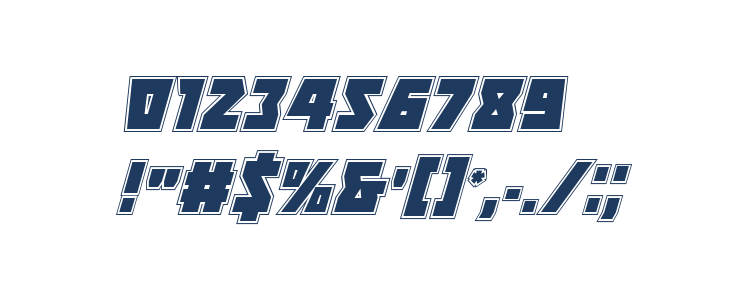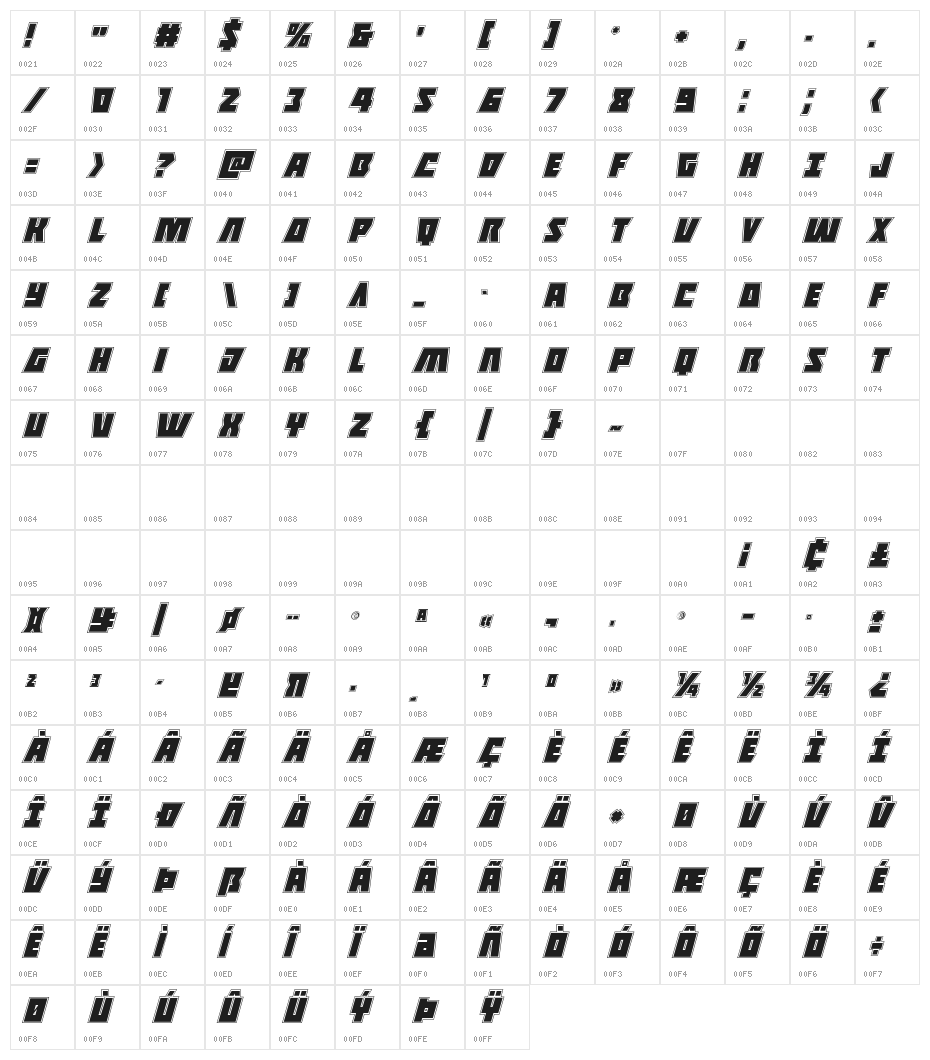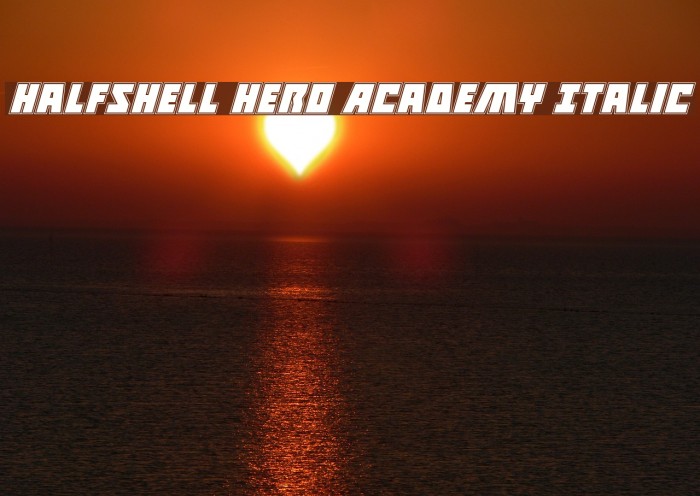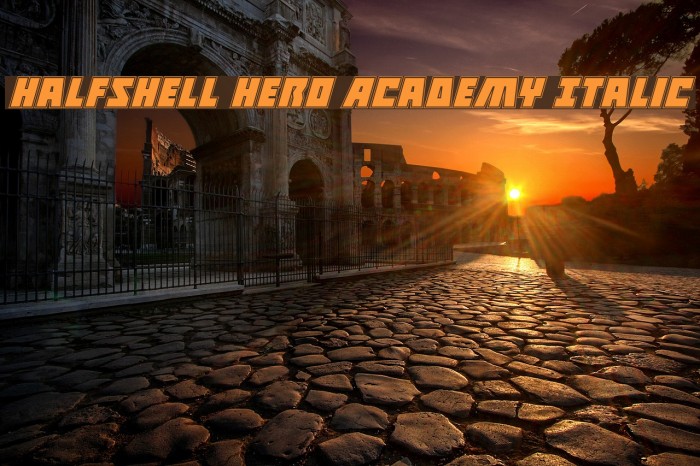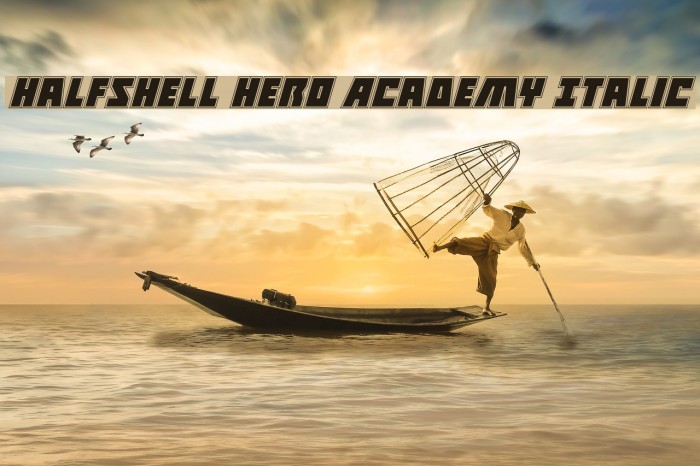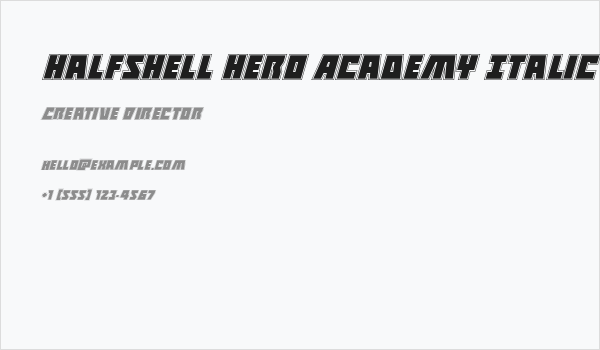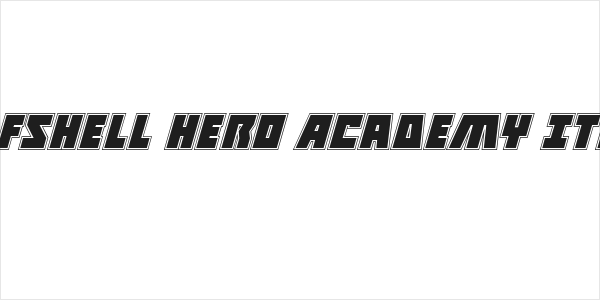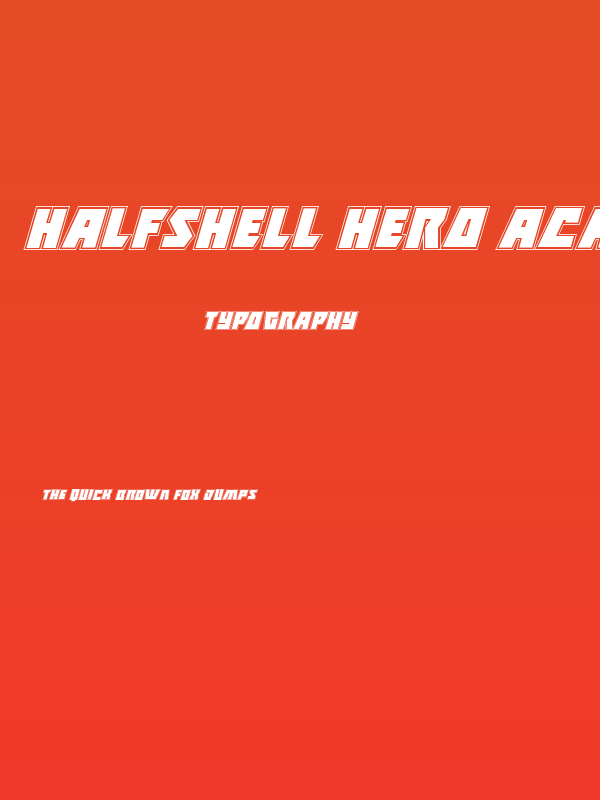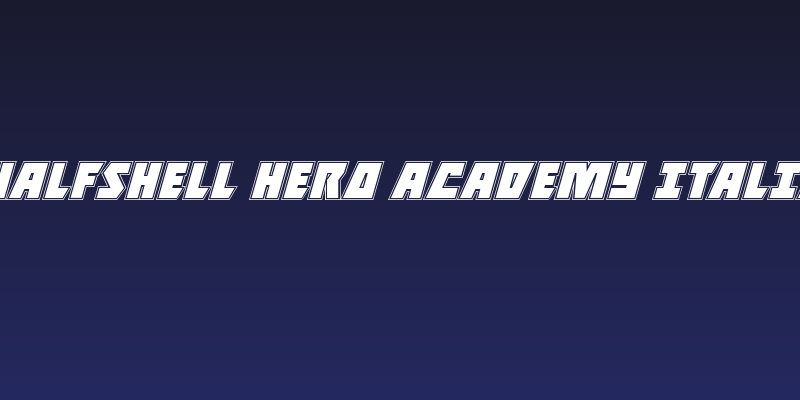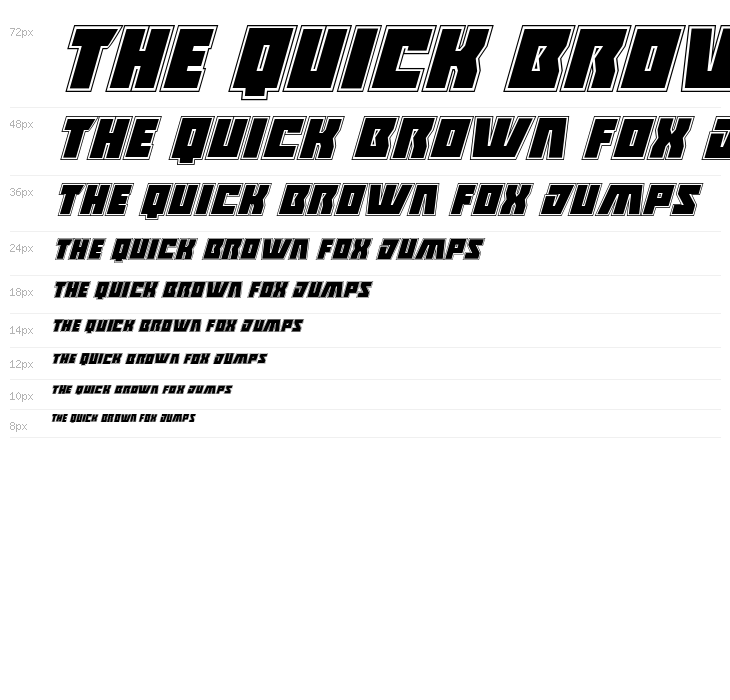
Halfshell Hero Academy Italic Font
Halfshell Hero Academy Italic Description
This font features a bold and dynamic style with a strong geometric influence. The characters are italicized, giving them a forward-leaning, energetic appearance. Each letter is outlined, adding depth and a three-dimensional effect. The strokes are thick and uniform, contributing to a high-impact visual presence. The font is highly legible, with distinct, angular shapes that make it suitable for attention-grabbing designs. The numbers and special characters maintain the same bold, outlined style, ensuring consistency across all text elements.
| Proposed Projects | Ideal for sports branding, video game titles, posters, and any project requiring a bold, dynamic typeface. |